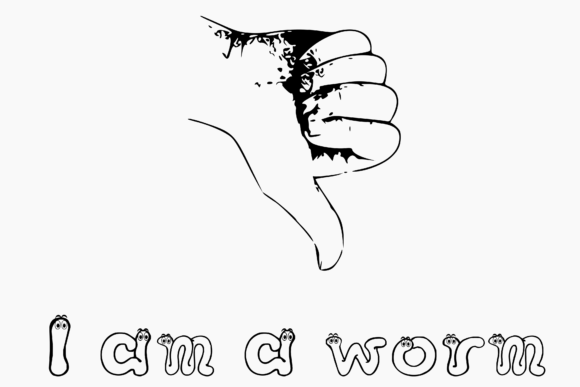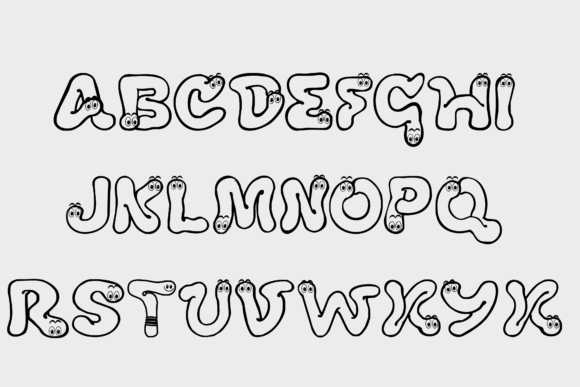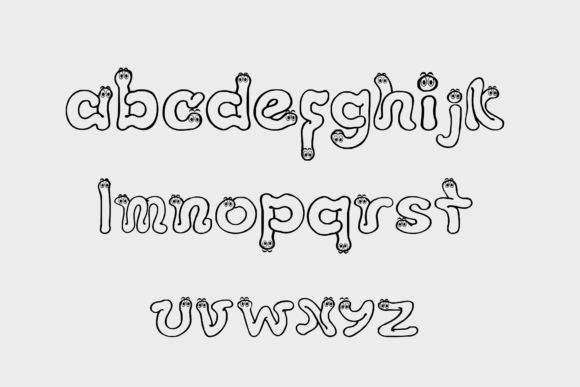
Unleash Your Quirky Side with I Am a Worm Font
Have you ever stared at a blank canvas, trying to spark a creative idea? I know I have. Sometimes, all it takes is a single font to break the ice and set your imagination free. For designers, finding that perfect font can be a game-changer. And that’s exactly what I Am a Worm Font is – a bold, unconventional display font that’s sure to turn heads.
With its quirky design and offbeat features, I Am a Worm Font is perfect for eclectic branding, experimental designs, and attention-grabbing headlines. Whether you’re a seasoned designer or just starting out, this font offers a unique opportunity to add some personality to your work. Its value lies in its ability to evoke emotions and spark conversations – making it an invaluable addition to any designer’s toolkit.
- Unique Characteristics: This font is designed to mimic a worm’s perspective, with a focus on whimsical and playful letterforms.
I Am a Worm Font Review
I was excited to dive into the I Am a Worm Font, hoping for a unique and engaging typographic experience. Here’s what I found:
- The font’s whimsical design effectively captures the playful spirit of its namesake, adding a touch of humor to any text.
- The bold lines and rounded edges create a friendly, approachable atmosphere that’s perfect for children’s books or educational materials.
- The font’s open feel makes it easy to read, even at larger sizes.
- The font may be too playful for more serious or professional applications, potentially detracting from the message.
- The bold lines and rounded edges can make the font appear a bit rough around the edges, particularly at smaller sizes.
- Lack of variations (e.g. italics, bold) may limit its usability in certain situations.
While the I Am a Worm Font excels in its playfulness and approachability, its limitations may make it less versatile than other font options. I’d recommend it for projects that require a lighthearted, educational tone, but may not be the best fit for more formal or complex applications.
The I Am a Worm Font is ideal for creating whimsical and playful designs, such as:
Children’s book illustrations
Party invitations
Brand logos
Wall art
To get the most out of the I Am a Worm Font, try the following:
Experiment with different font sizes and colors to create a unique effect.
Combine the font with other playful elements, such as illustrations or graphics.